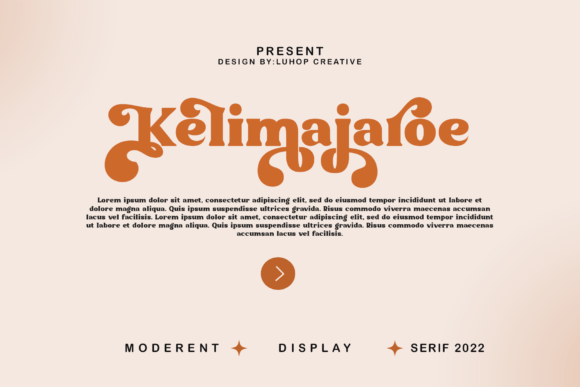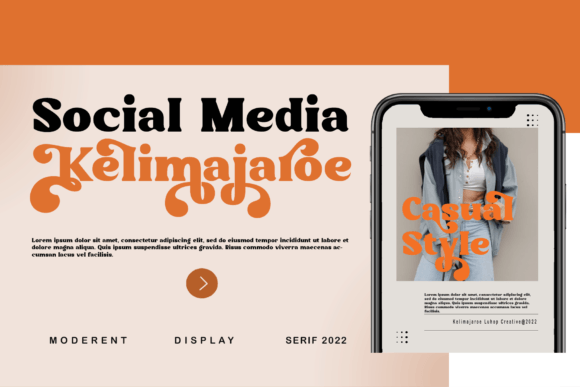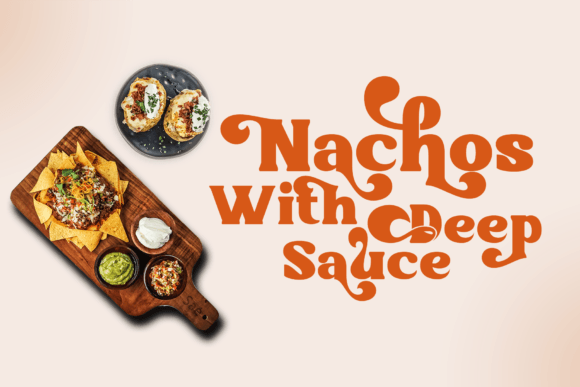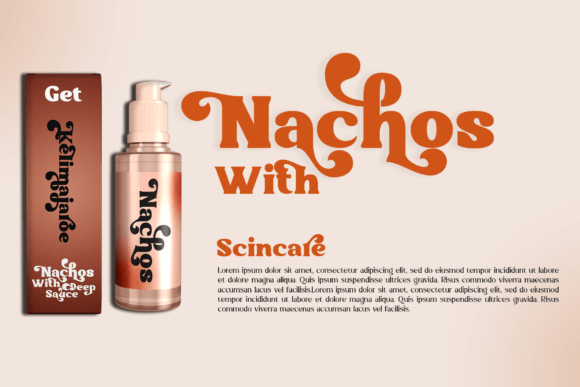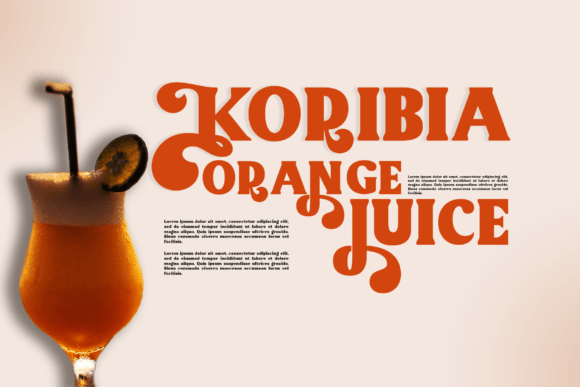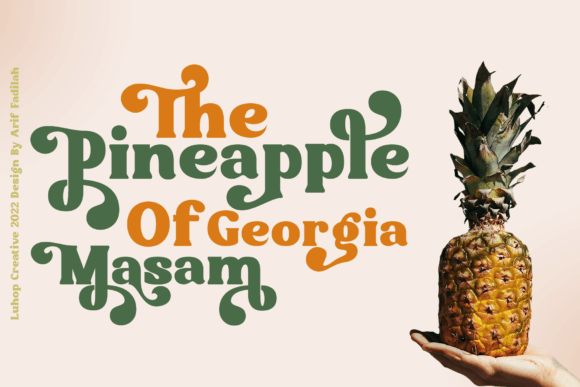
Introduction to Kelimajaroe Font
Kelimajaroe is a bold vintage style serif display font.
It is defined by smooth curves and is perfect for fashion branding or editorial designs Use this font for your designs and explore its endless possibilities.
Key Features of Kelimajaroe Font